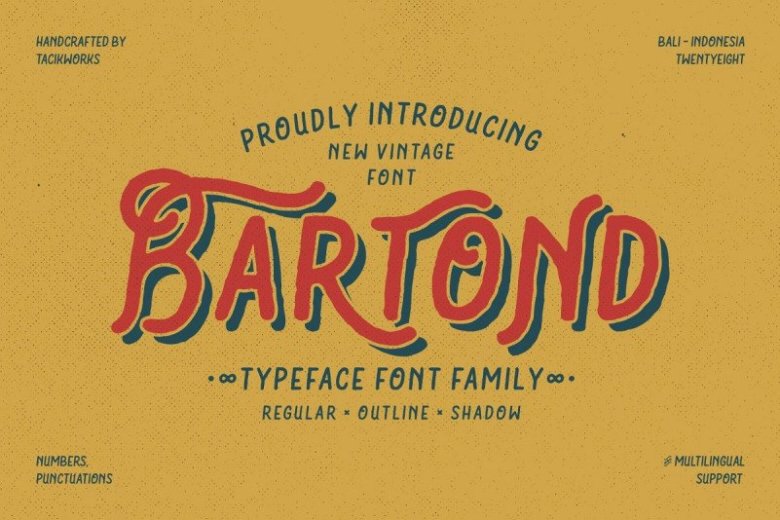
Bartond Typeface Free
Bartond Font is a vintage display Font. This fonts is very versatile, all the styles work well together and can look authentically vintage. It’s designed and shared by Tacikworks. Bartond Typeface is inspired by vintage designs with rough lines. Make the classic impression of this font stand out more.
Bartond font has approximately 219 glyph characters including uppercase, lowercase, discretionary ligatures and standard ligatures alternatives. It is suitable for creating vintage designs such as logo posters, merchandise, clothing, brochures, business cards and others.